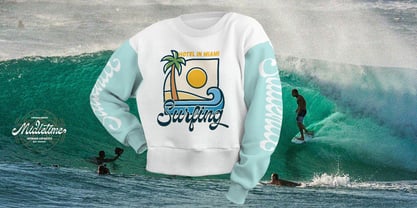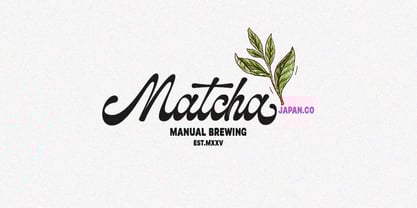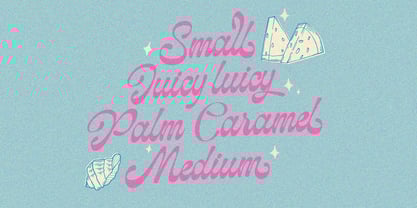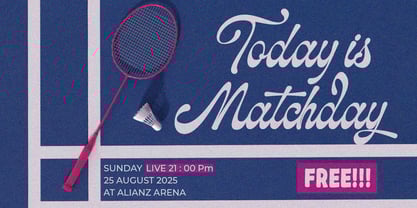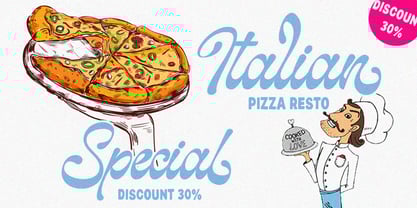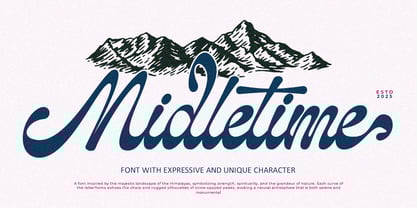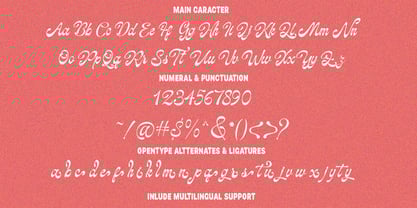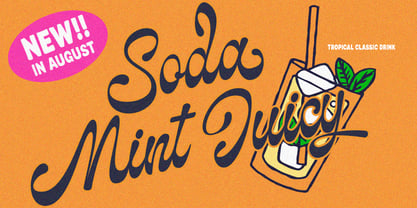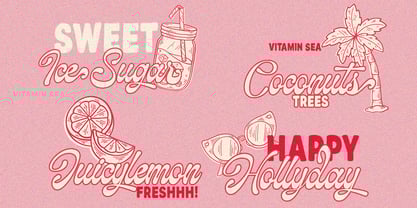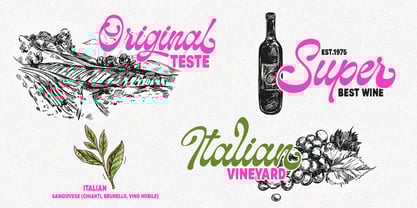
Midle time
by Natural Ink
The Midle time Font Family was designed by Arif Gunawan and published by Natural Ink. Midle time contains 1 styles. More about this family
Midletime a professional script font with irregular thickness and slightly rounded edges, making the letters look different from regular script fonts. With a unique typeface, this font leans slightly towards retro fonts and includes a shadow file. This font is perfect for headlines, digital ads, magazines, websites, posters, brands, and logos. No matter the topic, this font will be a great asset to your font collection, as it has the ability to enhance the quality of any design. With this beautiful font, your project is sure to stand out.
Midletime also comes with several unique alternates and ligatures, as well as multilingual support features that can make your project more attractive.